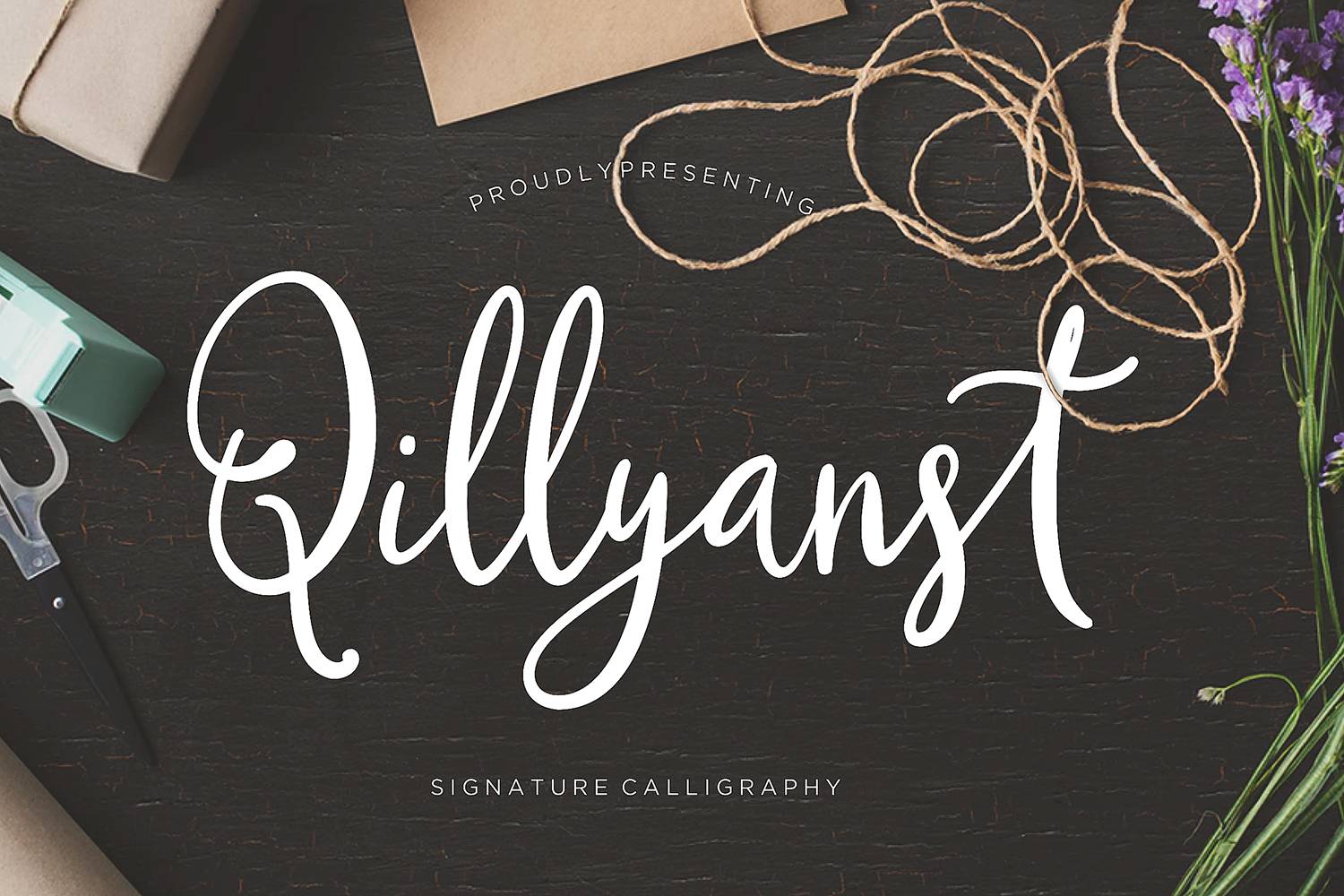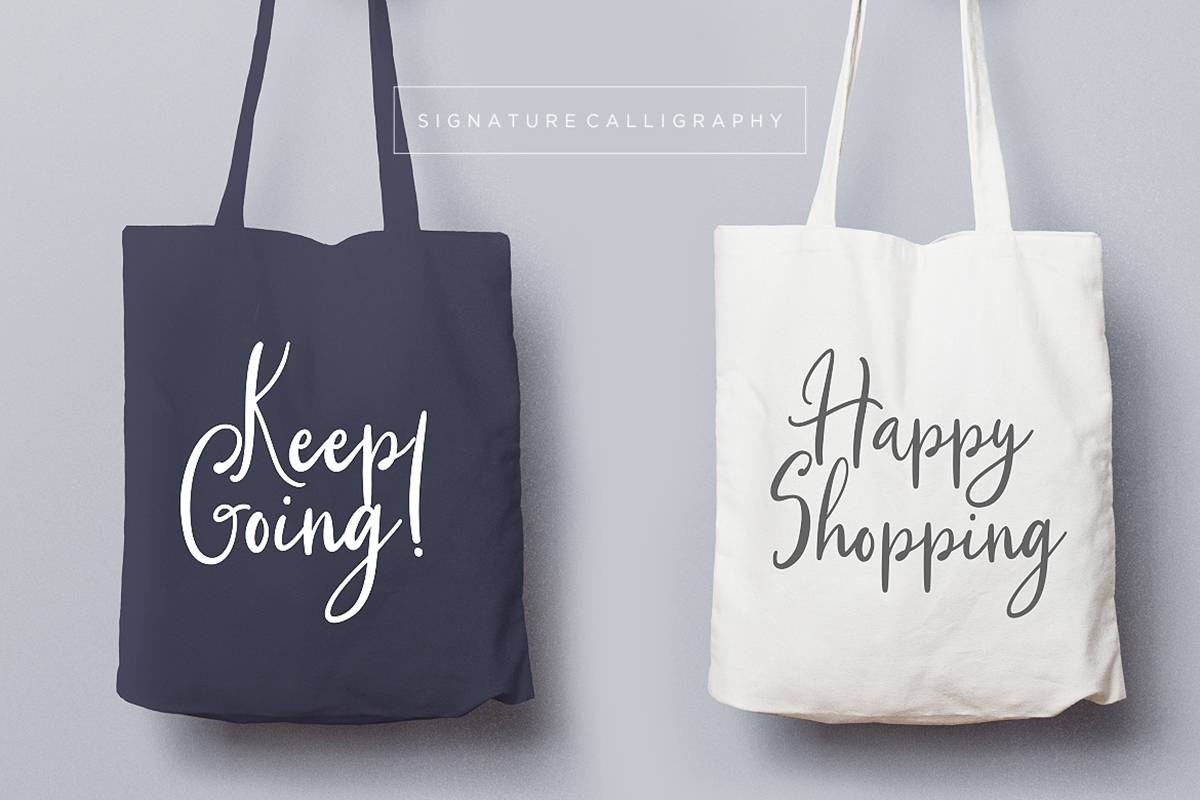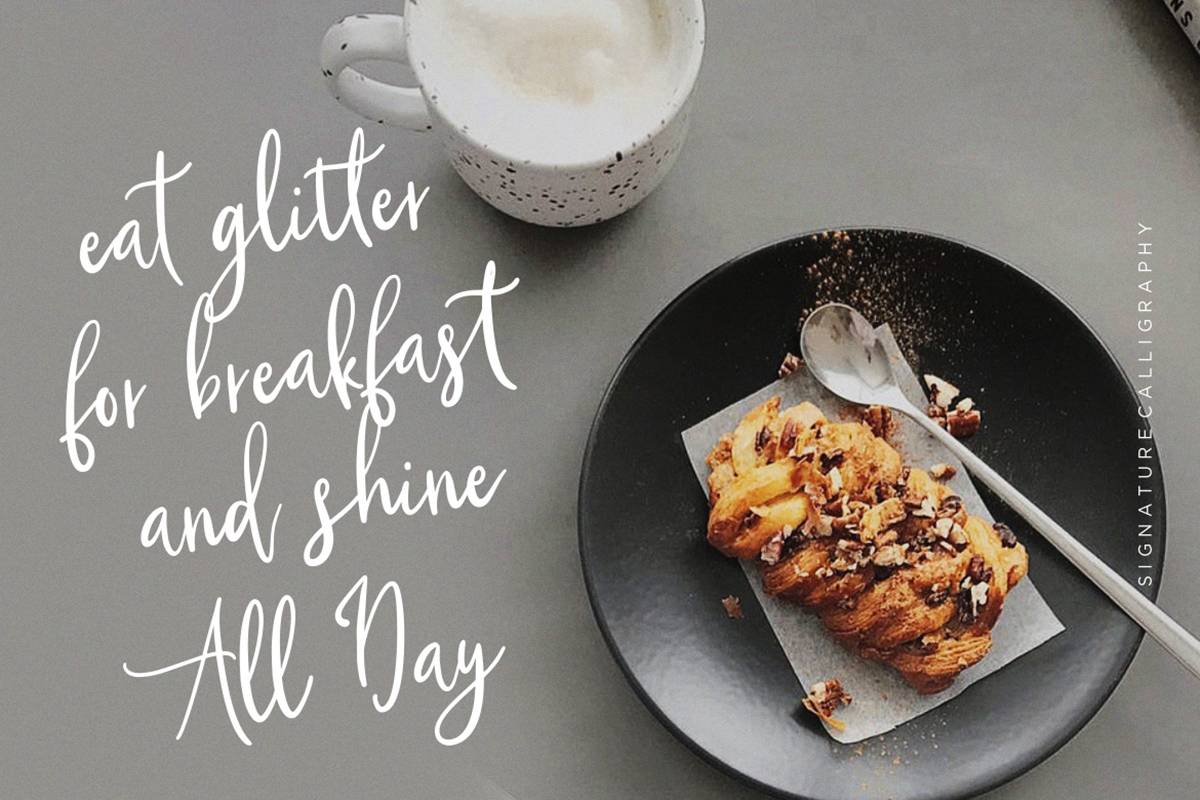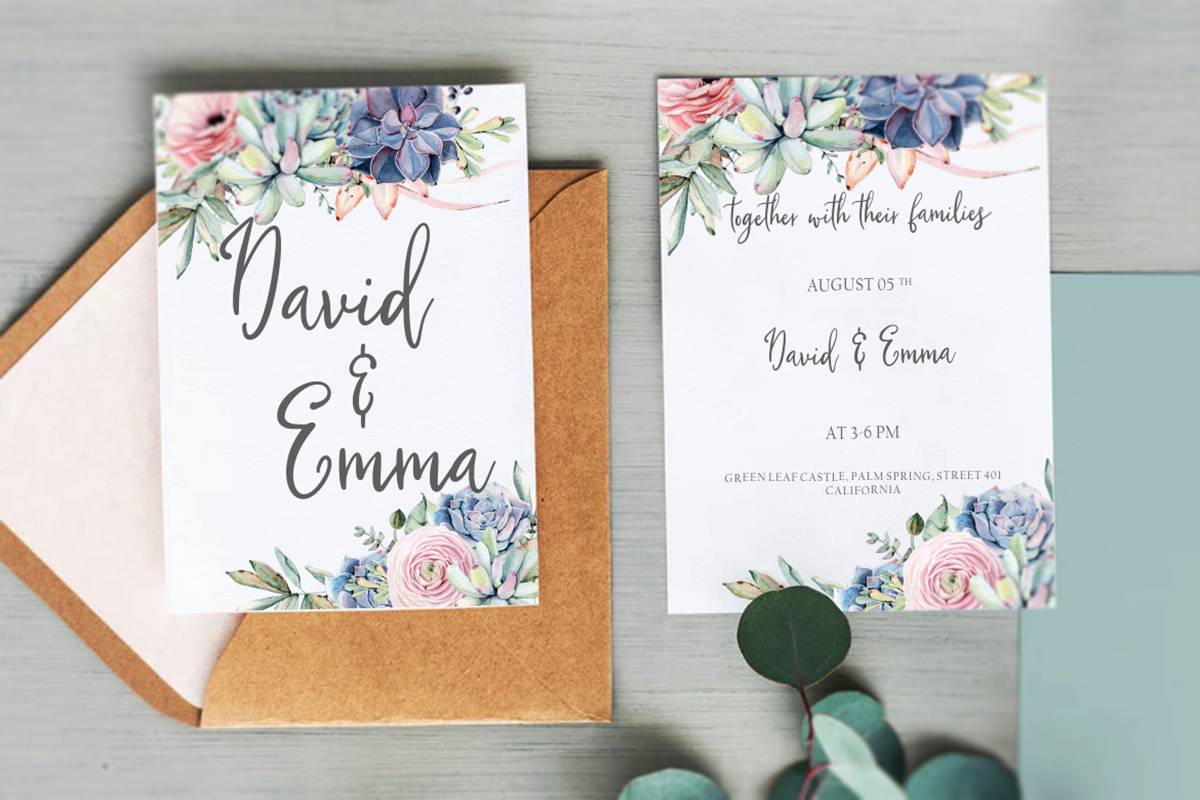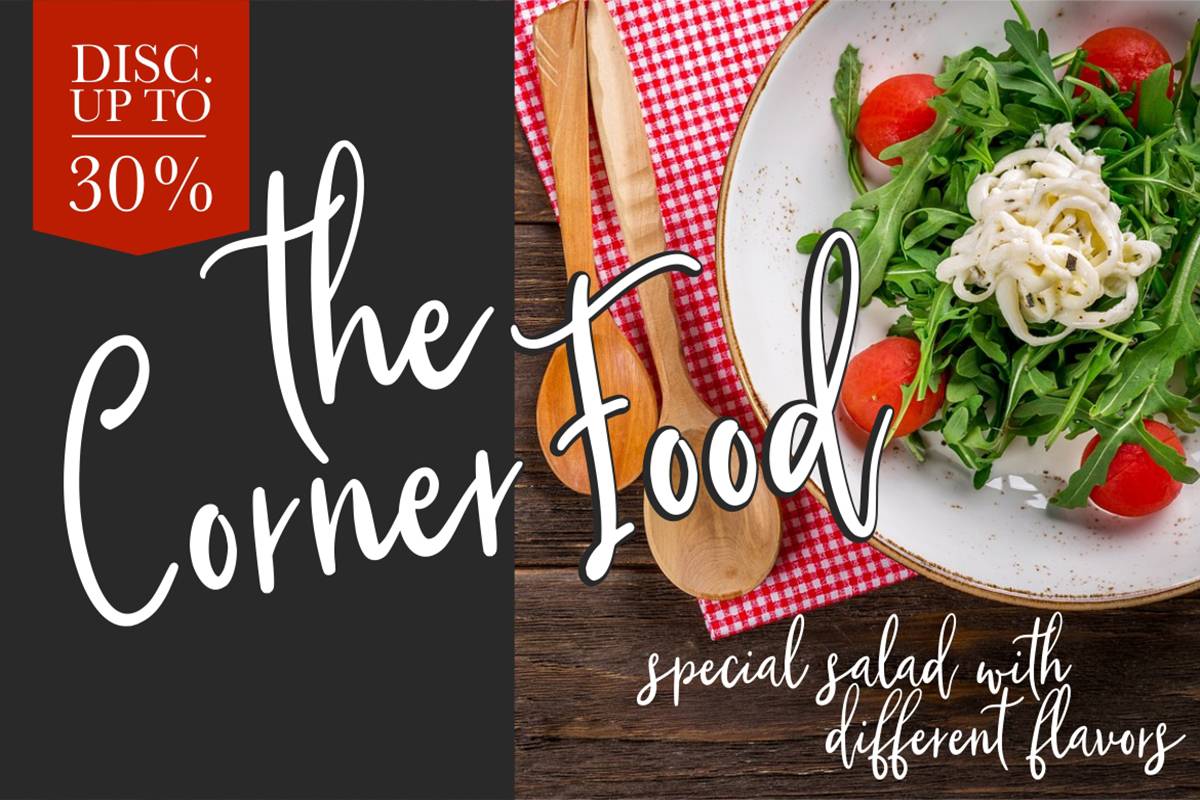
Qillyanst is a delicate, script-style font with elegant, flowing letterforms that mimic natural handwriting. Its slender strokes and graceful curves give it a sophisticated yet approachable feel, making it perfect for invitations, branding, or any design needing a personal, refined touch. This font shines in settings where warmth and elegance are key, such as luxury packaging, logos, and stylish editorial headlines.
Qillyanst Font
About Qillyanst Font